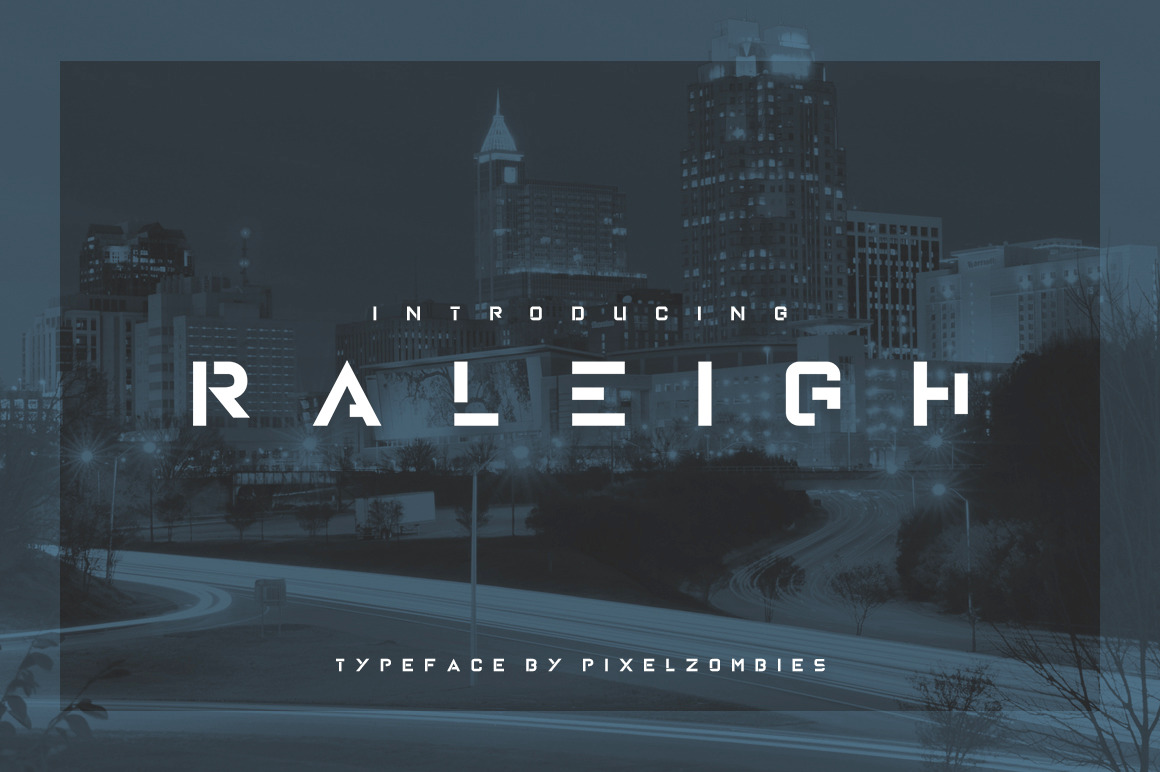
Raleigh - Premium Font + Alternate
A font for your inner-epicness. A futuristic yet modern stencil-esque font that’s great for big titles and small subtexts. Combine with images to really wow them humans.
- Italic
- Bold
- Bold Italic
- Bonus Alternate Version (lowercase)
- Simply user uppercase and lowercase. The uppercase version of Raleigh features more negative space in the letters. The lowercase alternate has less negative space.